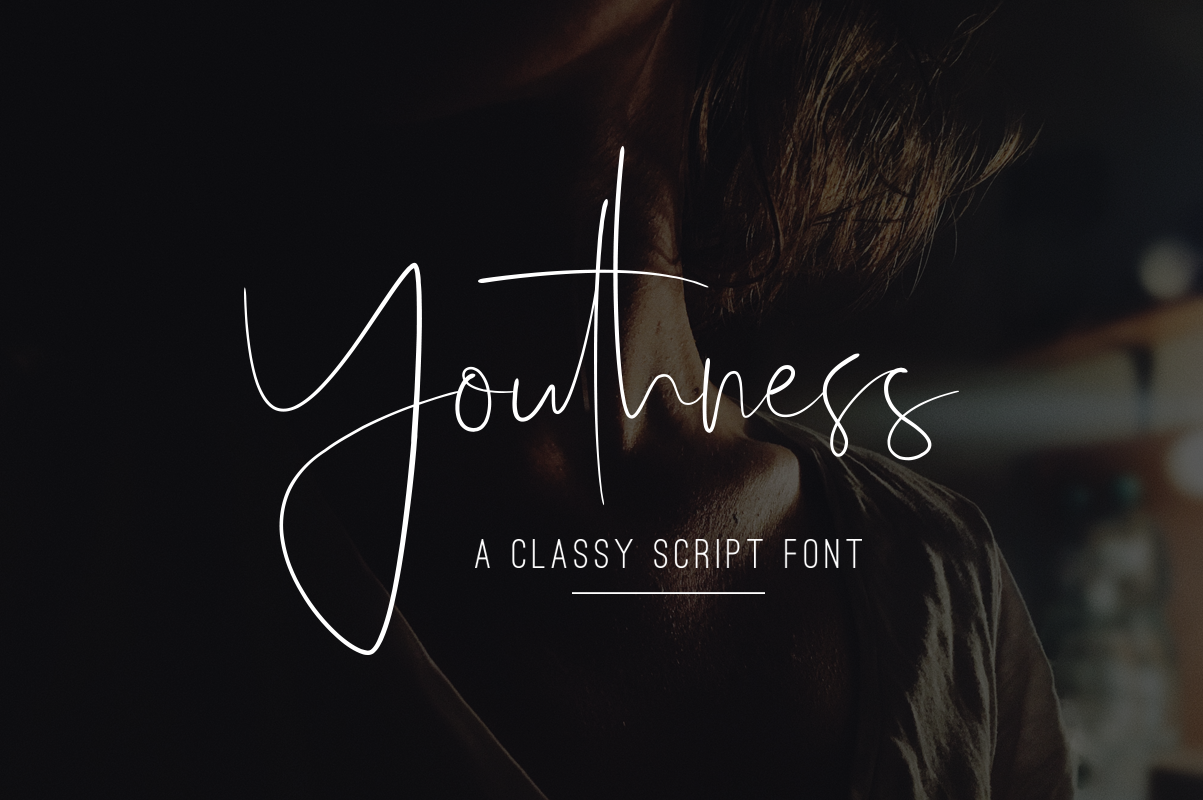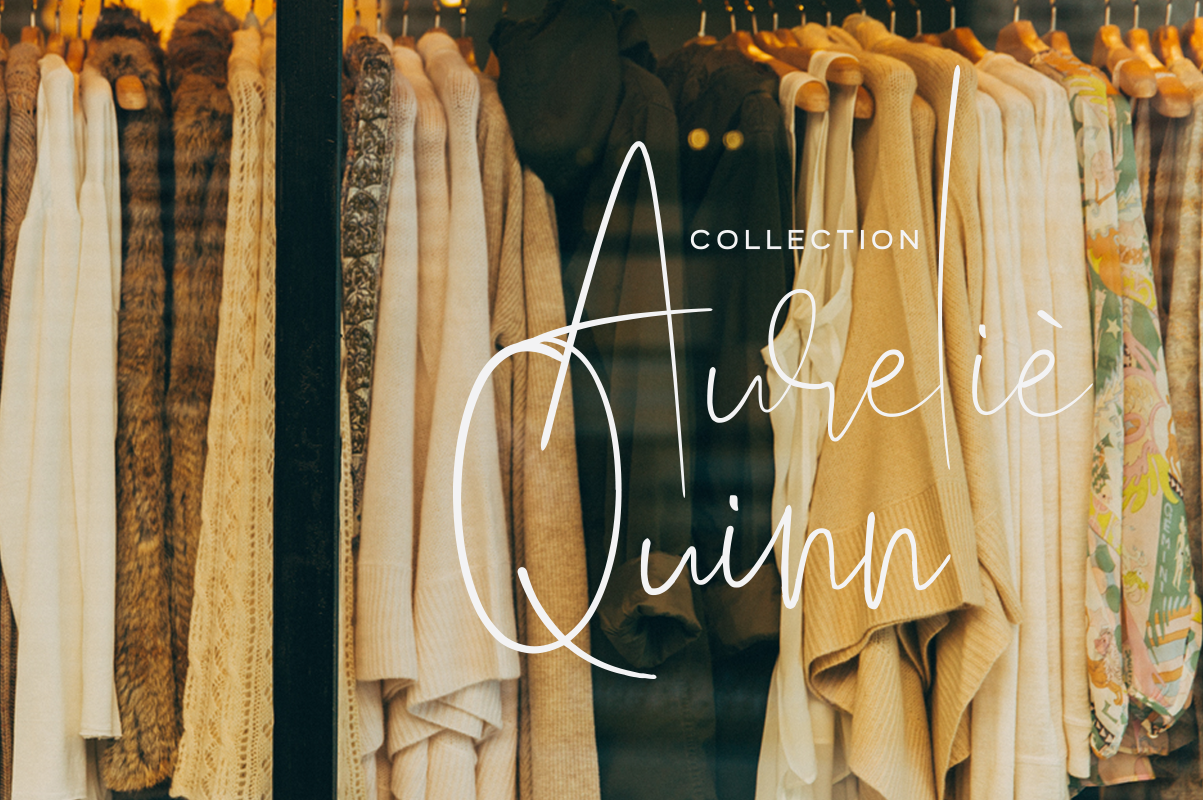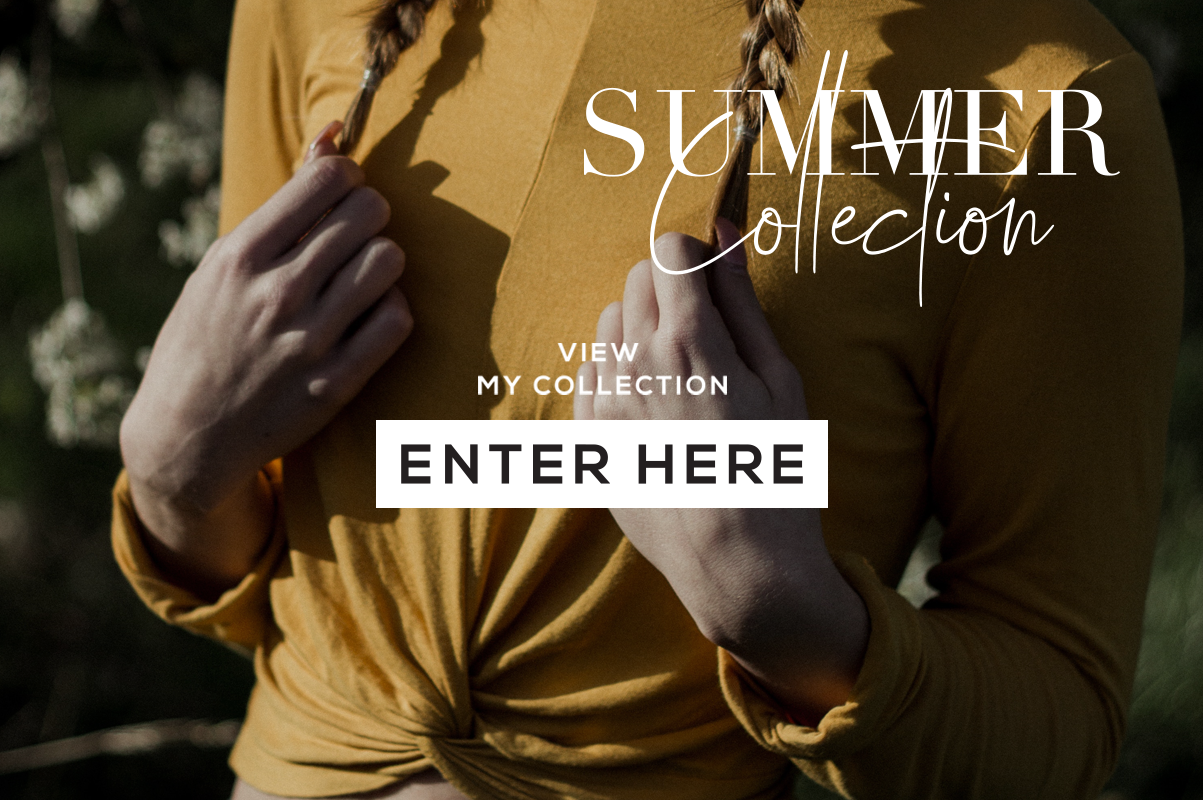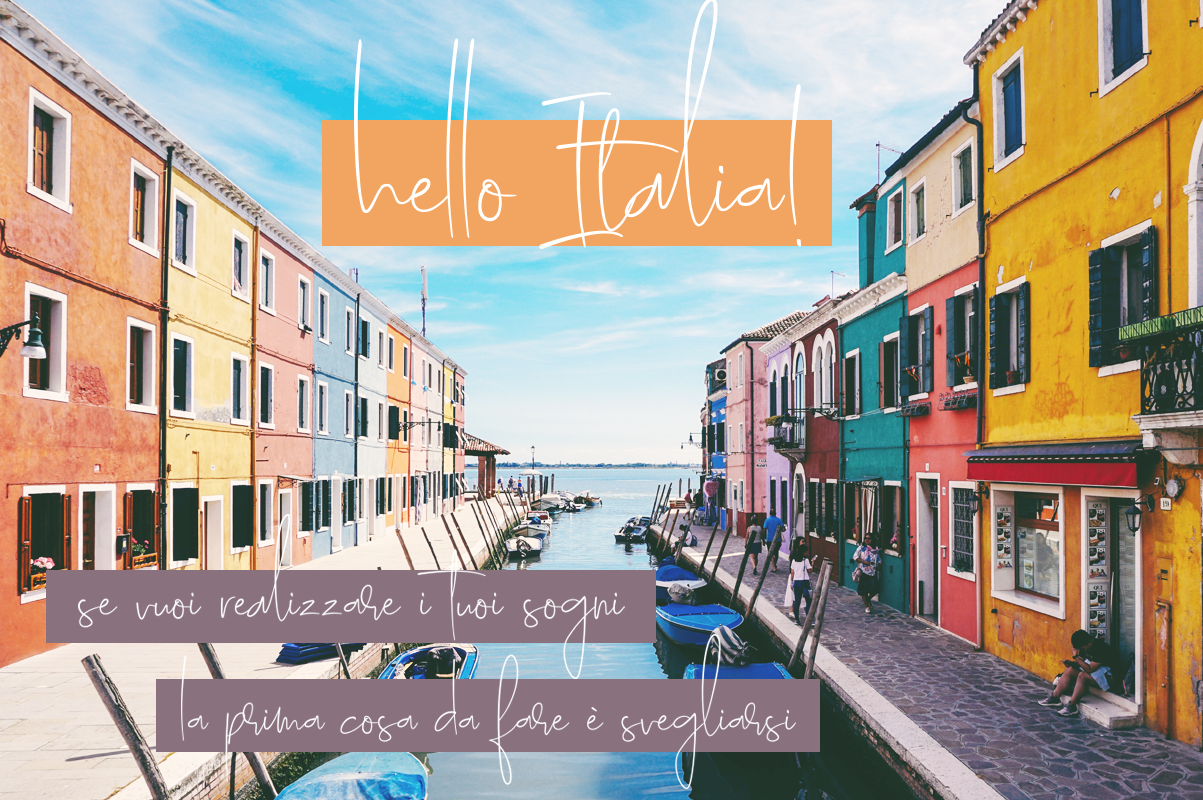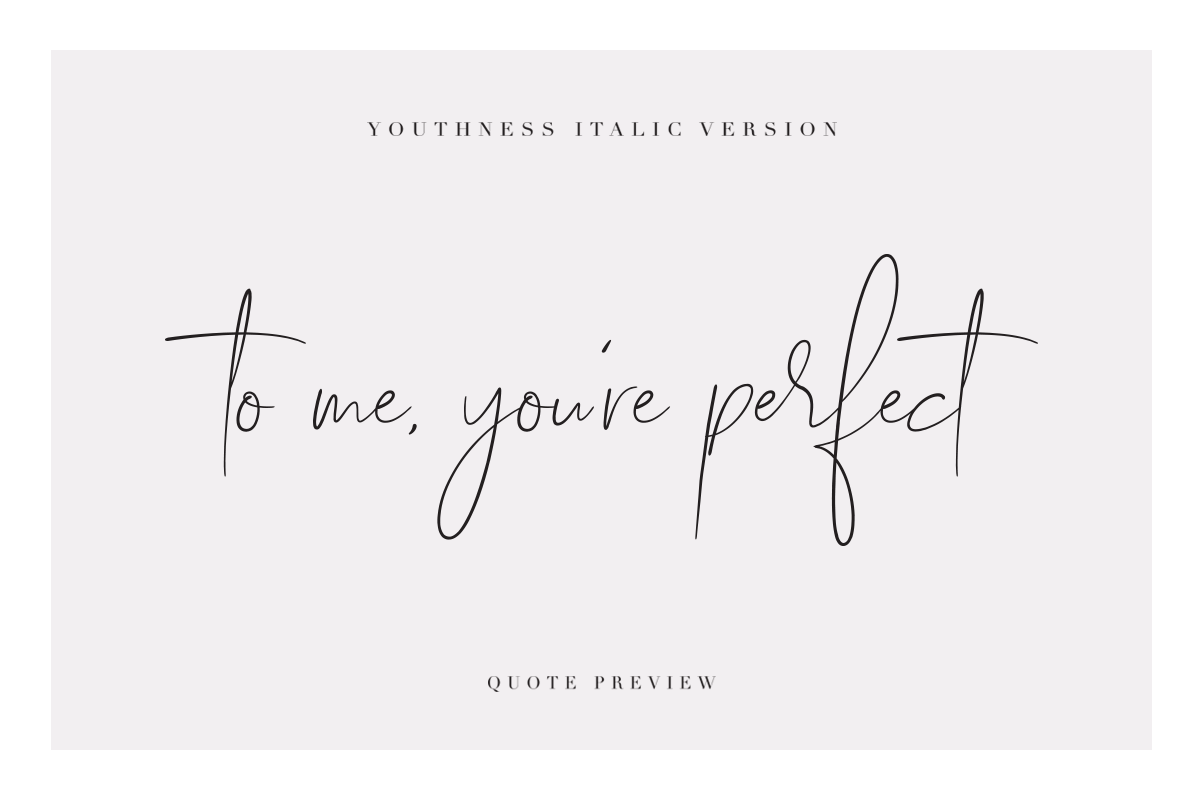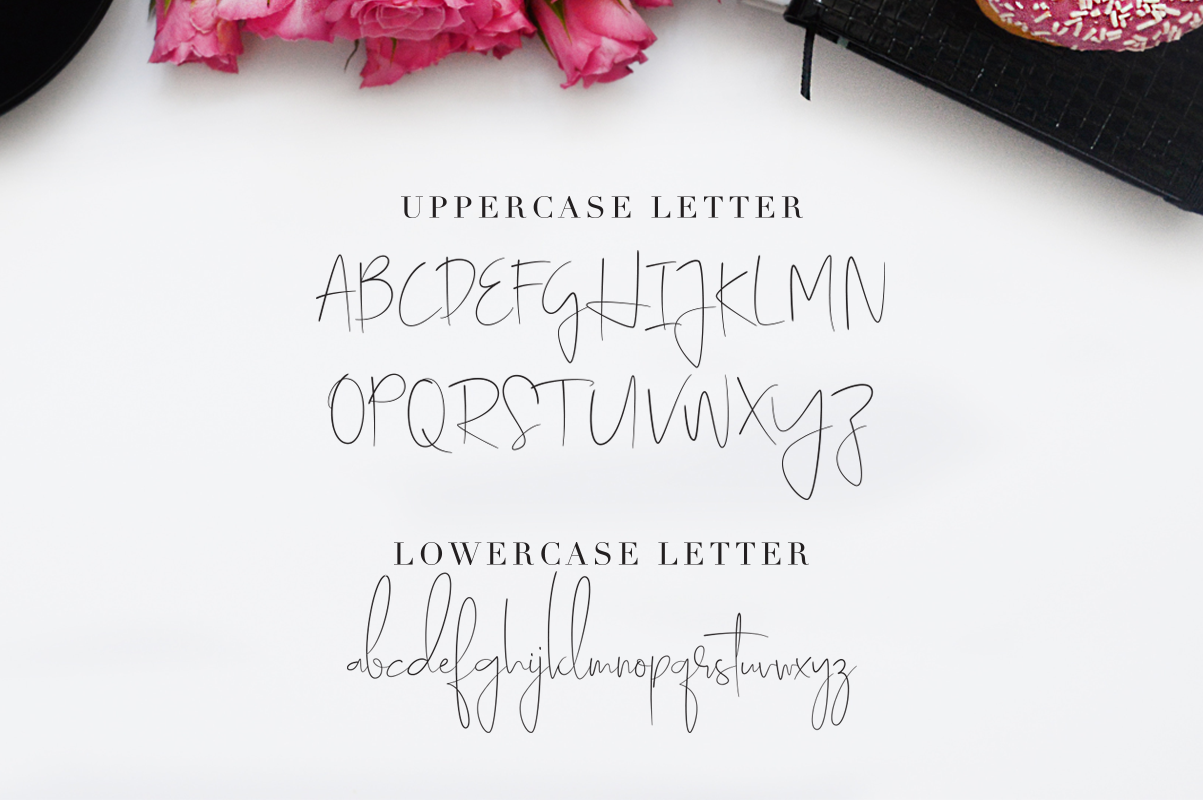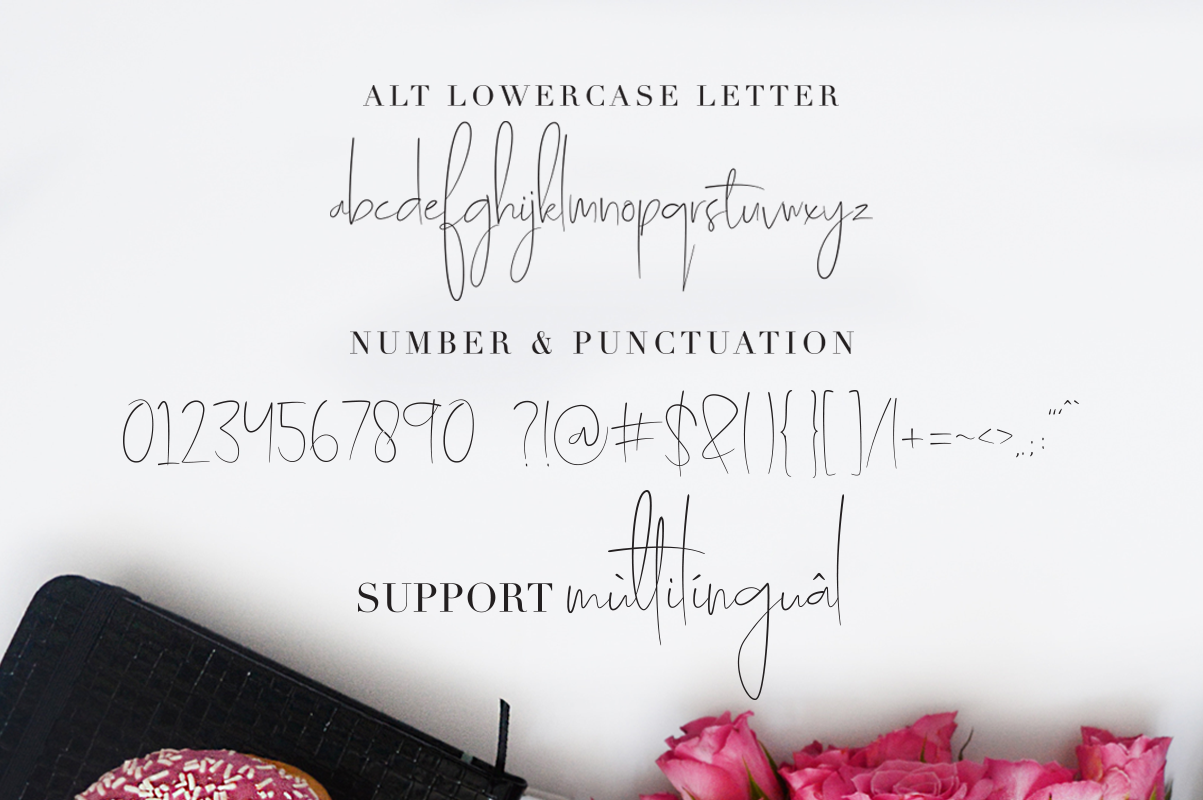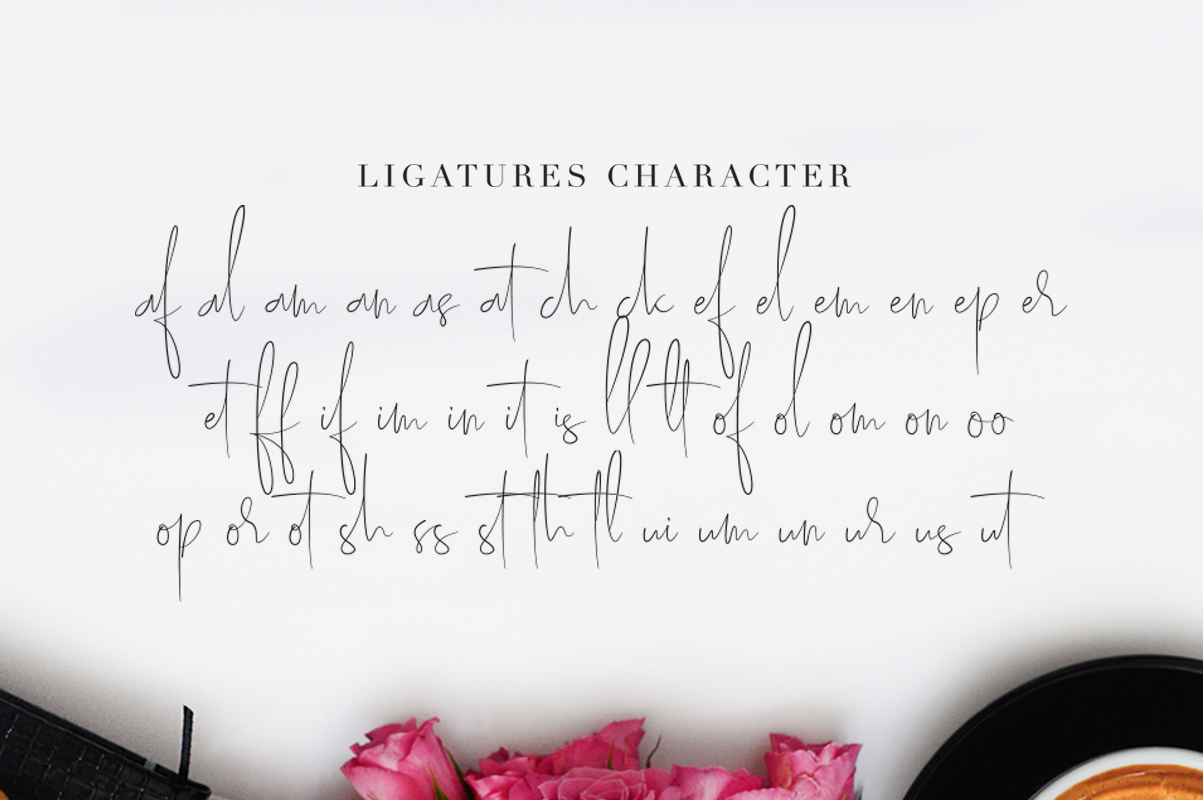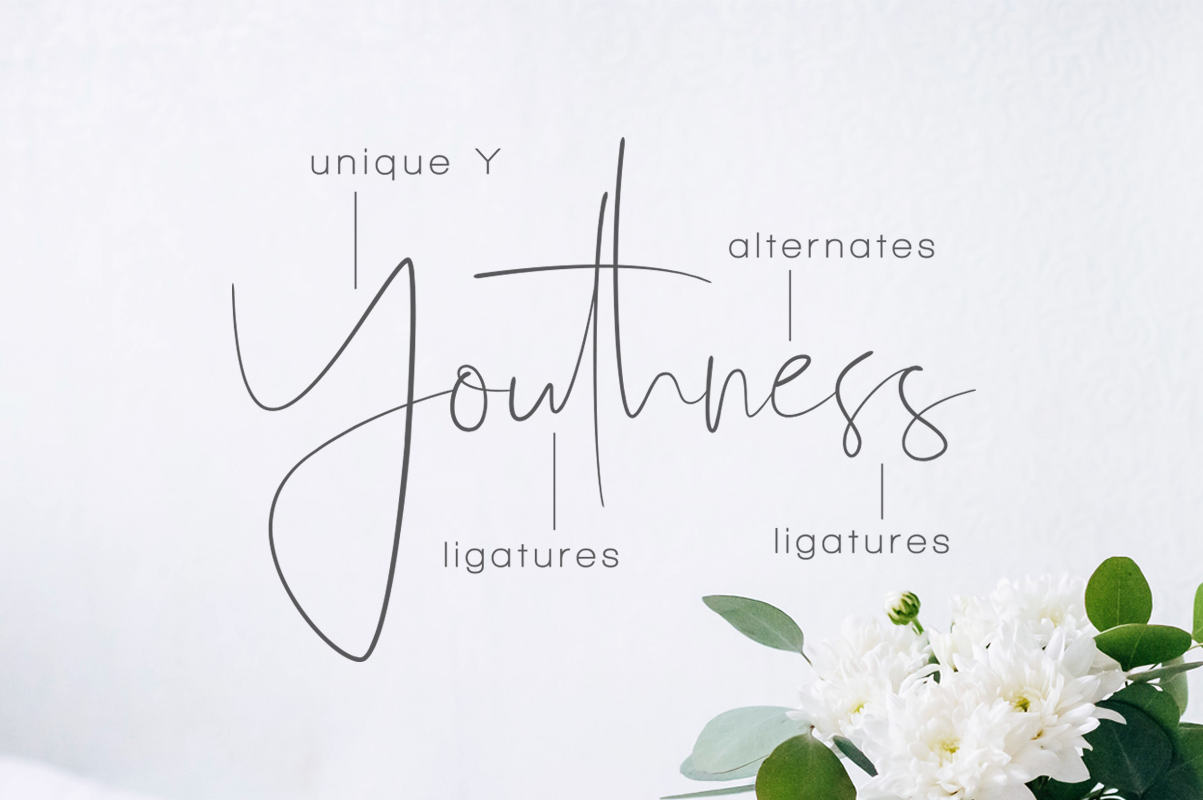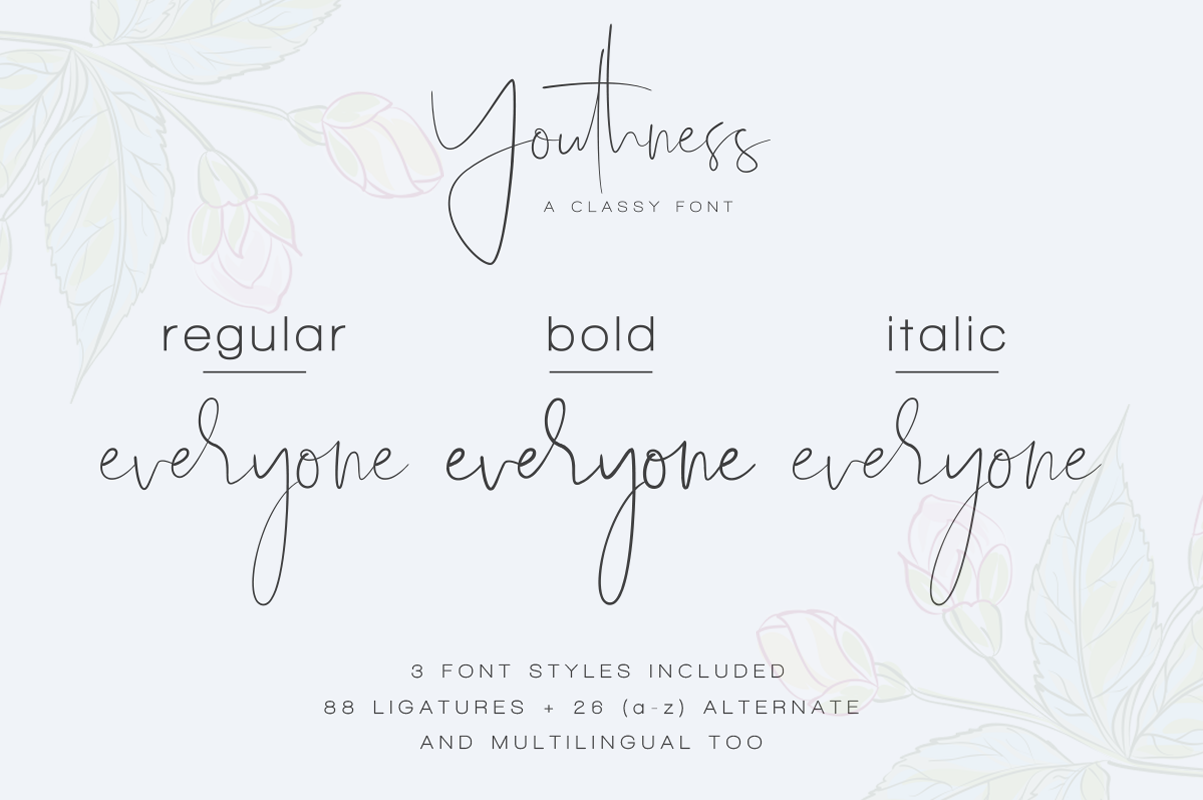
Youthness Font
About Youthness Font
Youthness is a stunning script kept in a feminine font, with carefulness of design. This font looks beautiful as a signature or logotype font in modern, minimal projects.